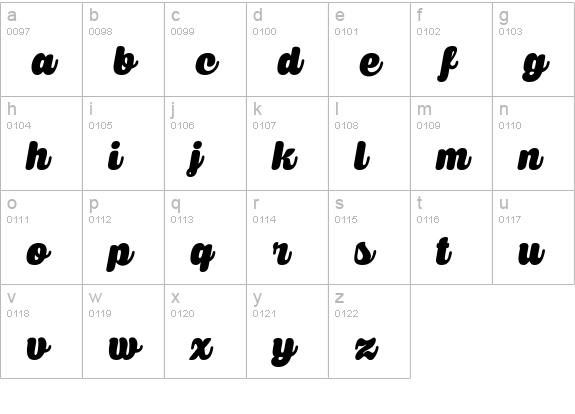
Caprica Script Personal Use Font Details
Caprica Script Personal Use font is a beautiful and elegant typeface that is perfect for adding a touch of sophistication to your designs. With its graceful curves and flowing lines, this font exudes a sense of style and class. Whether you're creating invitations, logos, or any other project that requires a touch of elegance, Caprica Script Personal Use font is sure to impress. What makes this font even more appealing is that it is free for personal use. You can download it easily and freely at FontsMarket.com. This means that you can use it for your personal projects, such as wedding invitations, greeting cards, or personal branding, without any cost. Caprica Script Personal Use font is designed with attention to detail, ensuring that each letter is beautifully crafted and visually appealing. The font's smooth and fluid strokes create a sense of movement, making it perfect for conveying a sense of grace and elegance. Whether you're a professional designer or a creative enthusiast, Caprica Script Personal Use font is a must-have in your font collection. Its versatility and beauty make it suitable for a wide range of projects. From wedding stationery to branding materials, this font will bring a touch of sophistication to any design. So don't miss out on this amazing font! Download Caprica Script Personal Use font for free at FontsMarket.com and elevate your designs with its timeless beauty and elegance.